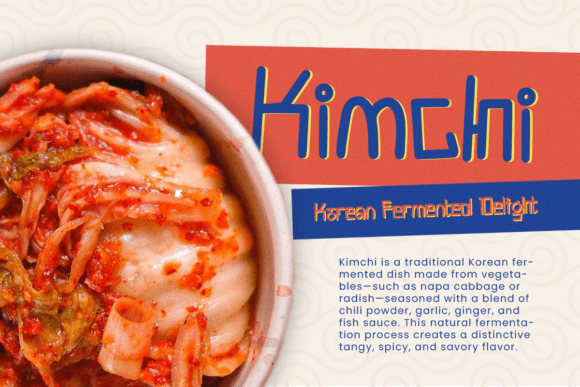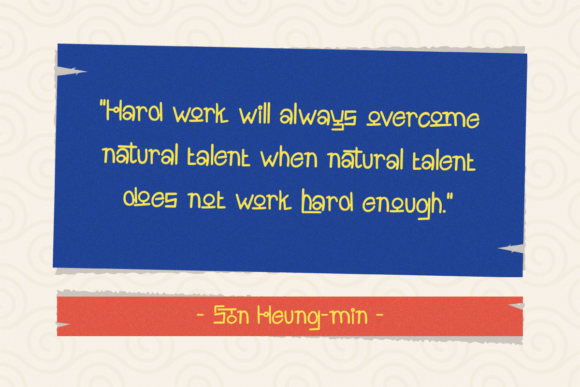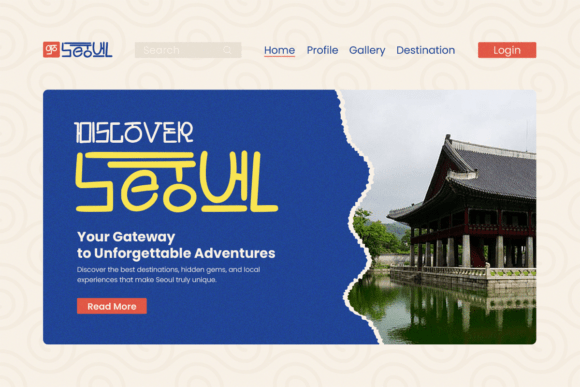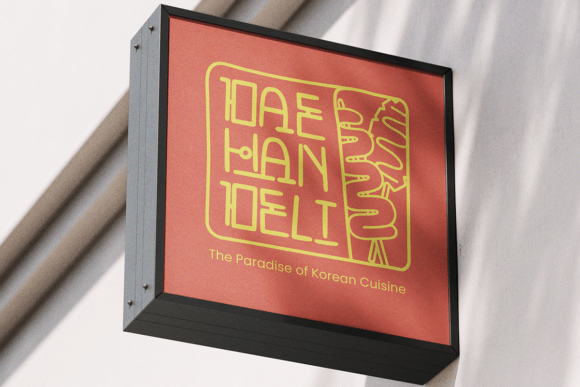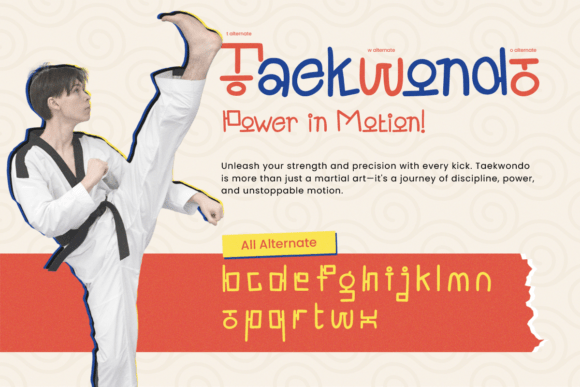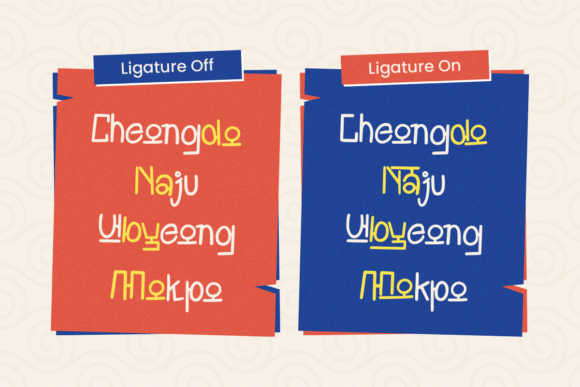
Introduction to Goghuji Font
Have you ever stumbled upon a design that perfectly captures the essence of a culture, making you feel like you’re experiencing it firsthand? That’s the magic of a well-designed typography. As designers, we’re always on the lookout for unique and authentic design resources to elevate our creative projects. And, if you’re anything like us, you’ll love the Goghuji Font – a stunning Korean-inspired display font that’s about to take your designs to the next level.
With its bold and stylish aesthetic, the Goghuji Font combines traditional Korean calligraphy with a modern twist, making it the perfect addition to any branding, poster, packaging, or apparel design. Its high-quality design and transparent background make it a versatile resource for designers looking to add an authentic touch to their work.
Key Features of Goghuji Font
- Unique and creative design elements make it a standout in any design project
- Perfect for use in digital and print designs, from logos to graphics and more
Honest Review: Goghuji Font
I recently stumbled upon the Goghuji Font while searching for a high quality design resource for my creative project. The first thing that caught my attention was the wide range of font styles available for free download. The font has a unique, elegant design that makes it perfect for both personal and commercial use.
- ✨ The font’s transparent background makes it easy to integrate with any design without worrying about background colors.
- ✨ The variety of font styles and sizes offers a lot of flexibility for different design applications.
While the Goghuji Font is a great addition to any designer’s toolkit, there are a few limitations to consider. The font may not be suitable for projects that require a bold, sans-serif font.
- ⚠️ The font may not be the best choice for projects that require a lot of bold text or headings.
- ⚠️ Some users may find the font a bit difficult to read at small sizes.
Overall, I’m impressed with the Goghuji Font and would highly recommend it to designers working on creative projects. Its high quality design and transparent background make it a valuable resource for any design project.
How to Use Goghuji Font
The Goghuji Font is a high-quality design resource ideal for creative projects. Its unique style and versatility make it a great addition to any design portfolio.
Tips for Getting the Most Out of Goghuji Font
For optimal results, use the Goghuji Font with a transparent background to create a seamless design. Experiment with different font sizes and styles to find the perfect balance for your creative project.
The Goghuji Font is ideal for use in various design projects, including logos, brochures, business cards, and social media graphics. Its unique style and versatility make it a great addition to any design portfolio.